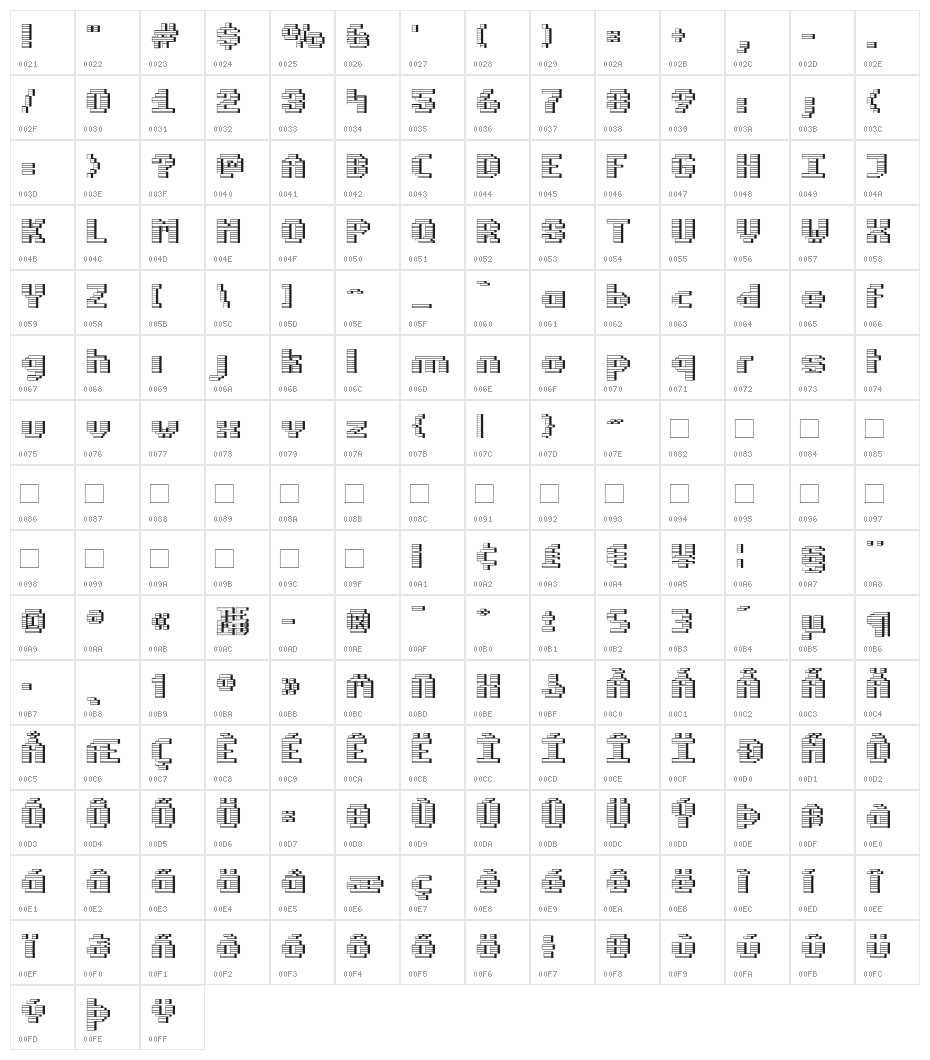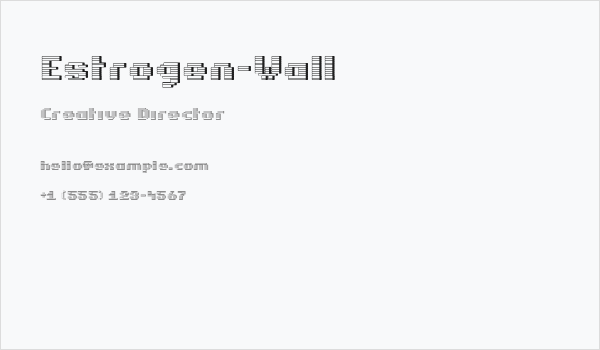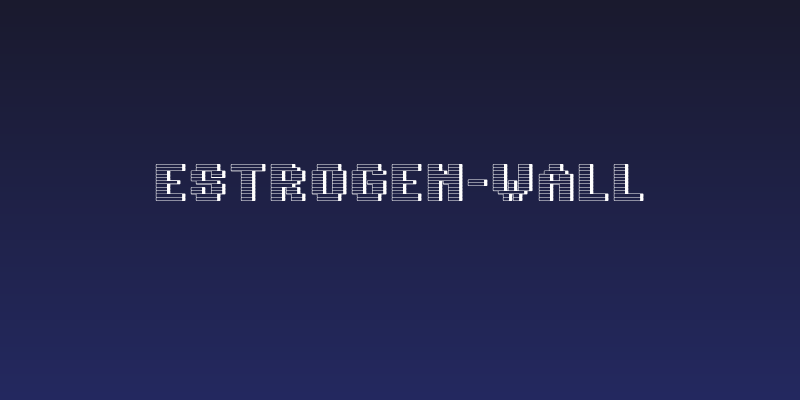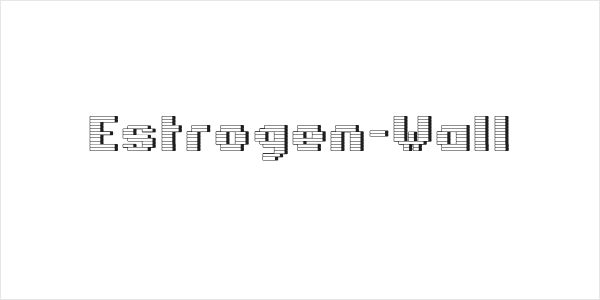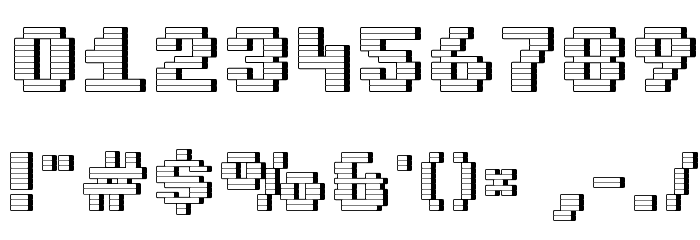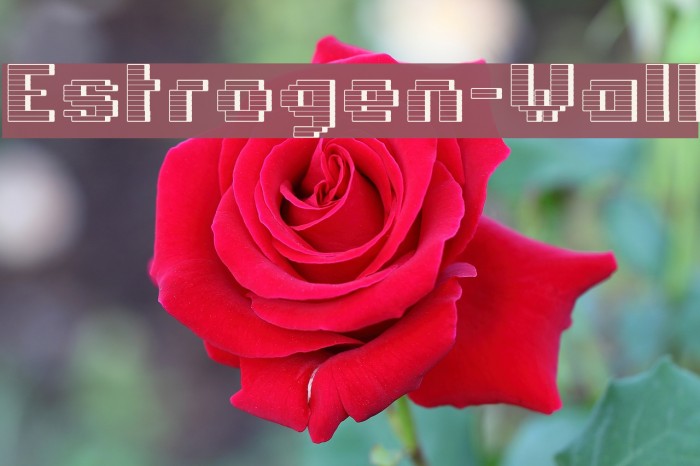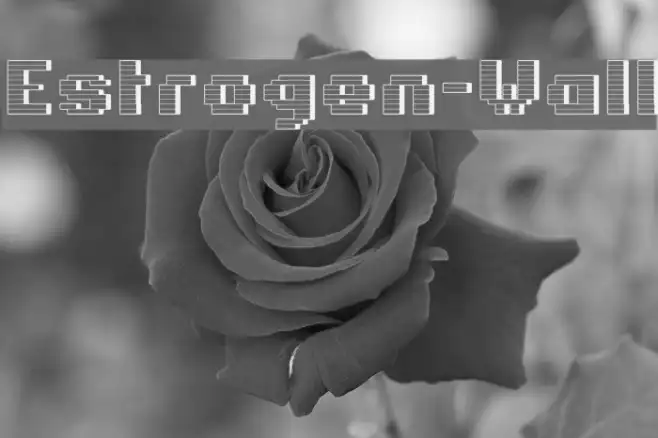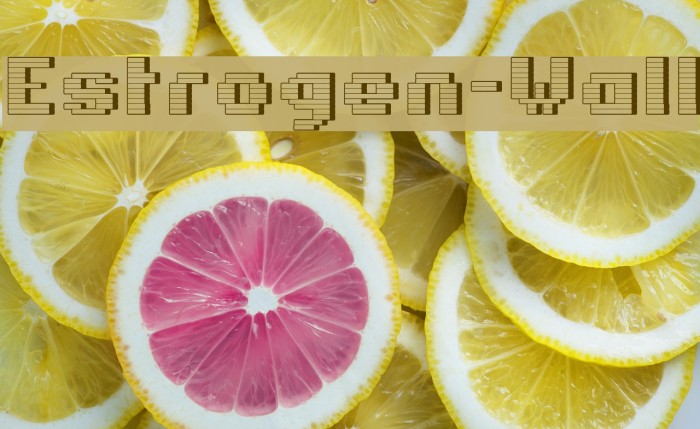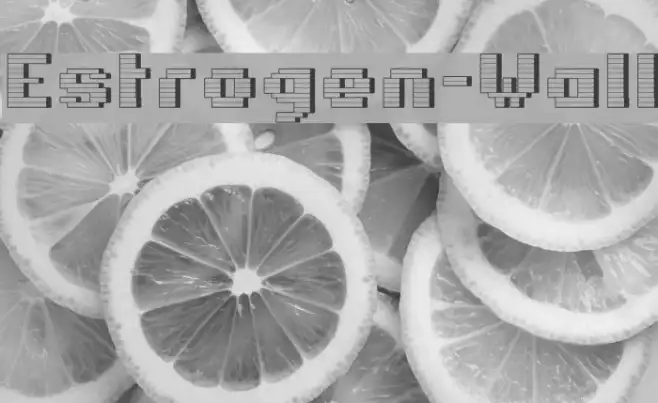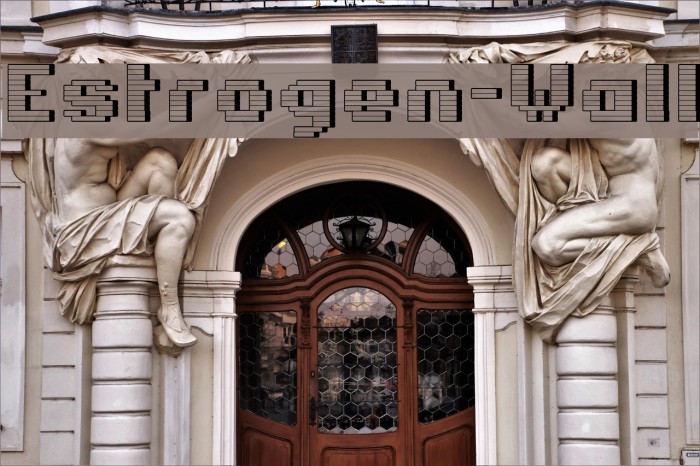
Estrogen-Wall Font
Estrogen-Wall Description
This font features a unique, three-dimensional block design that gives each character a layered, stacked appearance. The letters are constructed with horizontal lines that create a sense of depth and texture, making them stand out dramatically. This style is reminiscent of architectural or industrial design, with a modern twist. The uppercase and lowercase letters maintain a consistent structure, while the numbers and special characters follow the same aesthetic, ensuring uniformity across all glyphs. The font's bold and structured look makes it ideal for attention-grabbing headlines or creative projects that require a distinctive visual impact.
| Proposed Projects | Ideal for posters, branding, album covers, or any project requiring a bold, modern statement. |